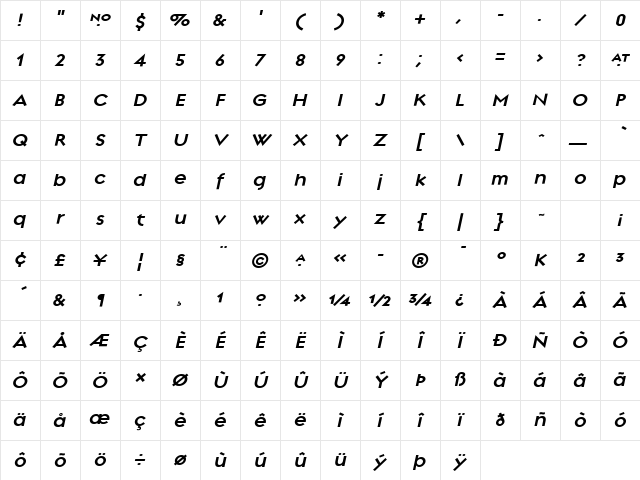
Regulator Bold Italic
Foundry: Rian Hughes . A Device font
Design Context for Regulator
Regulator is a composed and adaptable typeface that performs quietly and consistently across a wide range of design contexts. The slanted form adds forward momentum and visual energy. Its bold stroke weight gives it real presence on the page.
Pro Tip: Use Regulator for emphasis, pull quotes, and subheadings where its slanted energy can add rhythm to the layout.